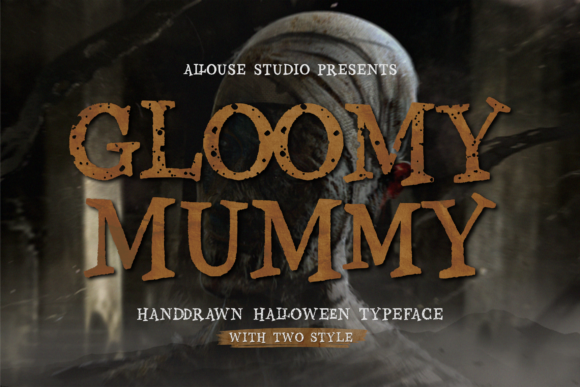
Unleash Your Creativity with the Gloomy Mummy Font
You know that feeling when you’re brainstorming ideas for a new project and suddenly, everything clicks? You envision a bold, eye-catching design that screams attention-grabbing. For designers and artists, this moment is pure magic. But sometimes, finding the perfect font to bring your vision to life can be a challenge. That’s where the Gloomy Mummy Font comes in – a rough, bold, and thick lettered display font that’s perfect for making a statement.
Whether you’re designing t-shirts, sportswear, logos, or advertisements, the Gloomy Mummy Font is an invaluable asset in your creative toolkit. Its versatility and bold character make it a valuable addition to any design project. With the Gloomy Mummy Font, you can add a touch of edginess and sophistication to your work, setting it apart from the crowd and making it truly unforgettable.
Gloomy Mummy Font Key Features
- Font Style: A unique blend of spooky and mystical elements, perfect for Halloween-themed designs and projects.
- Character Set: Includes a comprehensive set of characters, including uppercase and lowercase letters, numbers, and special symbols.
Gloomy Mummy Font Review
Overall, I think the Gloomy Mummy Font has some interesting characteristics that make it a unique addition to any design project. ✨ One of the things that stands out is its distressed, vintage aesthetic, which can be perfect for projects that need a touch of nostalgia or retro flair. ✨ The font also has a wide range of characters and symbols, including accented letters and punctuation marks, making it a great option for designers who need to work with languages that require these characters.
However, there are a few limitations to consider. ⚠️ One of the main issues is the font’s inconsistent spacing and kerning, which can make it difficult to read in certain contexts. ⚠️ Additionally, some of the characters may not render correctly in certain browsers or operating systems, which can be a problem for designers who need to ensure that their work is accessible to a wide audience.
- Spacing and kerning can be inconsistent
- Perfect for projects that need a distressed, vintage aesthetic
- Wide range of characters and symbols, including accented letters and punctuation marks
Getting the Most Out of the Gloomy Mummy Font
To get the most out of the Gloomy Mummy Font, try combining it with bold or italic styles for emphasis, or using it in conjunction with other distressed or vintage fonts for a unique look.
The Gloomy Mummy Font is perfect for creating spooky or vintage-themed designs, such as:
- Horror movie posters
- Steampunk-inspired artwork
- Retro-style invitations
Can I customize the Gloomy Mummy Font?
Yes, the Gloomy Mummy Font is a highly customizable font. You can adjust the font size, color, and style to suit your design needs. Additionally, the font includes a range of OpenType features, such as ligatures and swashes, that can be used to add extra flair to your designs.